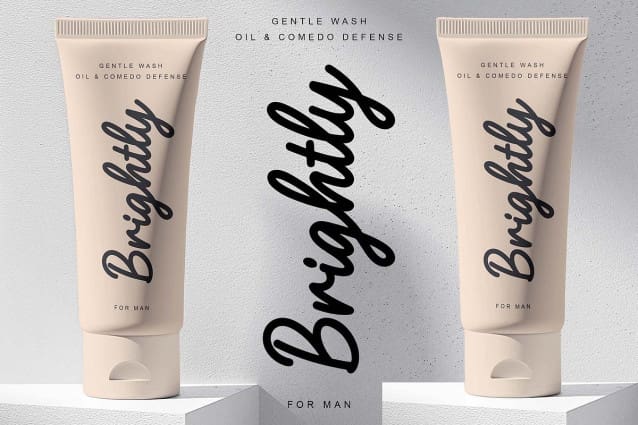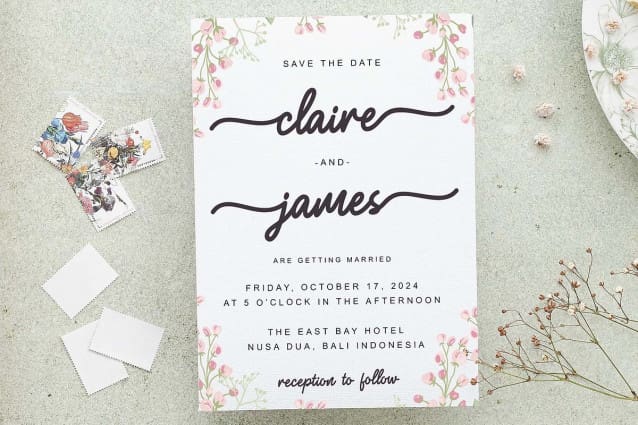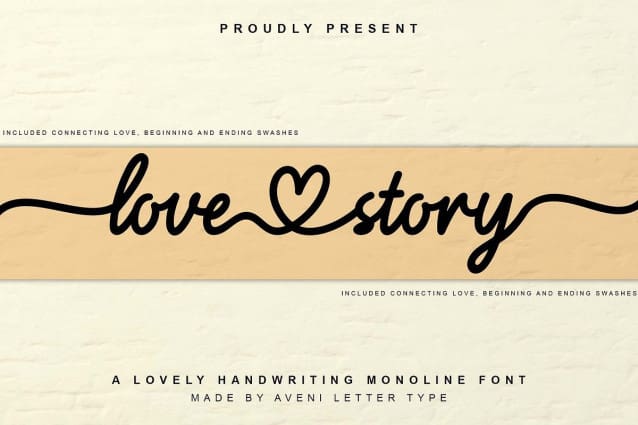
Love Story Monoline Font
Love Story Monoline font, which was born as a lovely handwritten monoline with very neat kerning and accompanied by extra typeface features connecting love, beginning, and ending swashes.
This LoveStory Monoline font is very Instagrammable and easy to use for Windows or MAC. It is perfect for branding, wedding invites, logotypes, business cards, letterheads, cafe menu tables, shop names, company names, wedding invitation cards, packaging products for your business, clothing branding, your website or social media, and of course, there is much more creativity that you can use from this Love Story Monoline font.